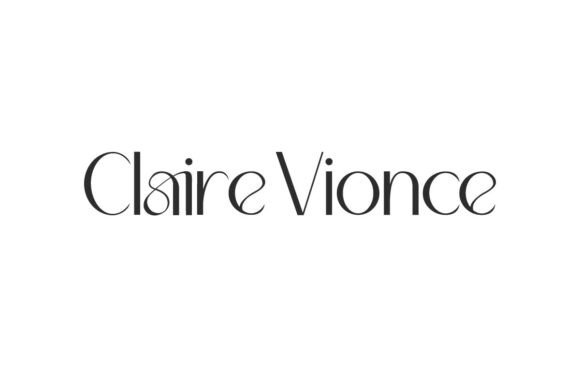
Introducing Claire Vionce Font: Elevate Your Designs with Elegance and Sophistication
In the world of typography, fonts play a crucial role in defining the aesthetic and tone of a design. For those seeking a touch of luxury and refinement, the Claire Vionce font is an exceptional choice. This chic, sophisticated display serif font is specifically crafted for elegant branding and high-end design, combining clean, contemporary letterforms with artistic curves and refined ligatures.
Key Features of Claire Vionce Font
- Clean and Contemporary Design: Claire Vionce boasts a modern and sleek design, making it perfect for designs that require a fresh and updated look.
- Artistic Curves and Refined Ligatures: The font features beautiful, flowing connections like “ai”, adding a touch of sophistication and elegance to any design.
- High Contrast Strokes: The lightweight elegance and high contrast strokes of Claire Vionce deliver a professional yet expressive appearance, ideal for luxury brands and high-end designs.
- Complete Character Set: The font includes a complete set of basic uppercase and lowercase characters, numerals, punctuation, and symbols, ensuring versatility and flexibility.
- Ligature Characters: Enriched with ligature characters, Claire Vionce adds visual charm and flexibility, making it perfect for creative designs.
Ideal Use Cases for Claire Vionce Font
Claire Vionce is a versatile font suitable for a wide range of design applications, including:
- Apparel: Add a touch of luxury to your fashion brand with Claire Vionce.
- Beauty Clinics: Elevate your spa or beauty clinic’s branding with this elegant font.
- Boutiques: Create a sophisticated and high-end feel for your boutique with Claire Vionce.
- Cosmetics: Perfect for luxury cosmetics and skincare brands.
- Fashion: Ideal for fashion designers, magazines, and blogs.
- Floristry: Add a touch of elegance to your floristry business with Claire Vionce.
- Furniture: Suitable for high-end furniture designers and brands.
- Graphic Design: A great choice for graphic designers seeking a luxurious and modern font.
- Weddings: Perfect for wedding invitations, decorations, and designs.
- Spa Salons: Elevate your spa salon’s branding with Claire Vionce.
- Creative Writing: Add a touch of sophistication to your creative writing projects.
- Multilingual Support: Claire Vionce supports multilingual characters, making it a great choice for global brands.
Design Applications for Claire Vionce Font
Claire Vionce is a versatile font suitable for various design applications, including:
- Logos: Create a luxurious and sophisticated logo for your brand.
- Invitations: Perfect for wedding invitations, party invitations, and other formal events.
- Headers: Elevate your website or blog’s header with Claire Vionce.
- Product Packaging: Add a touch of luxury to your product packaging.
- Cards: Suitable for business cards, greeting cards, and postcards.
- Stickers: Create eye-catching stickers with Claire Vionce.
- Titles: Perfect for titles, headings, and subtitles in your designs.
- Websites: Elevate your website’s typography with Claire Vionce.
- Watermarks: Add a touch of sophistication to your watermarks.
In conclusion, Claire Vionce font is an exceptional choice for designers seeking a luxurious and sophisticated display serif font. With its clean and contemporary design, artistic curves, and refined ligatures, this font is perfect for elegant branding and high-end design. Its versatility, technical compatibility, and multilingual support make it an ideal choice for various design applications.